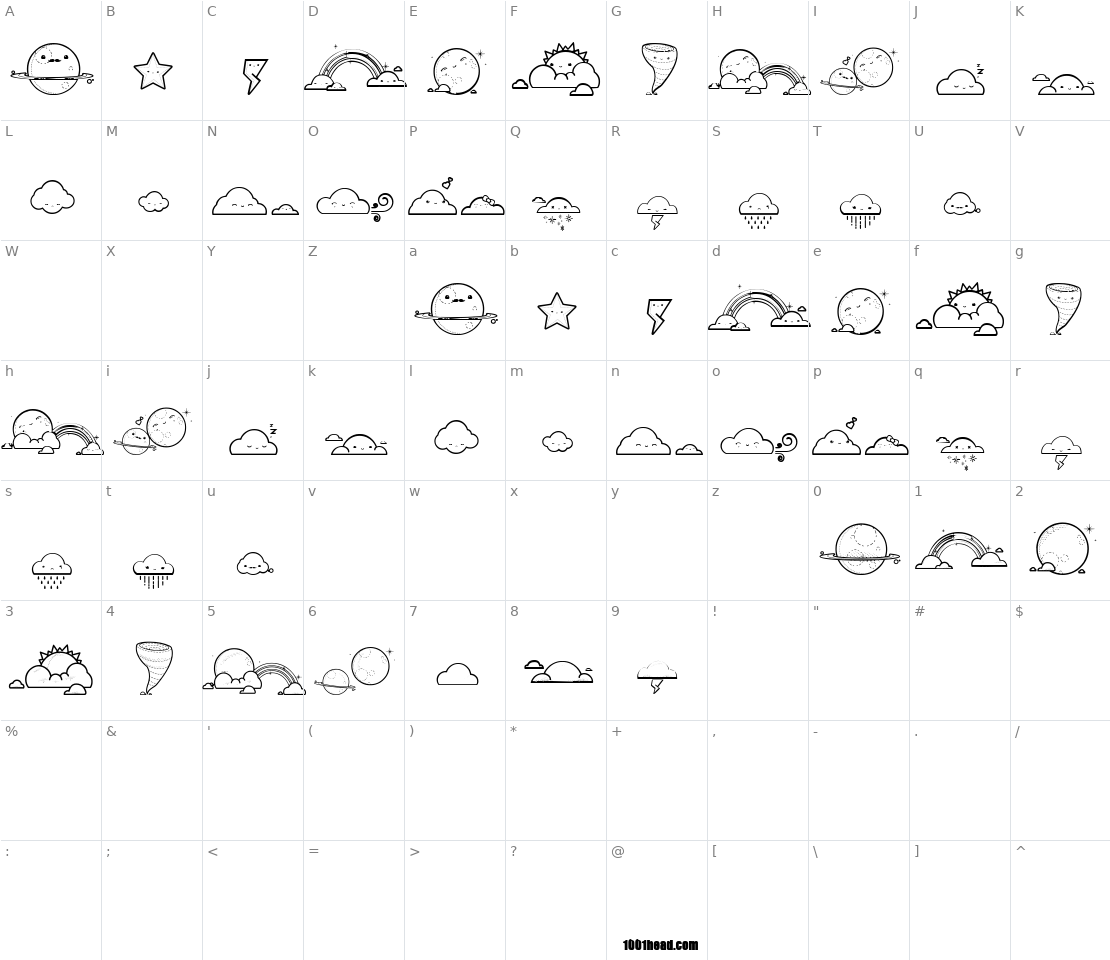
Toy Cloud
Toy Cloud is a decorative icon font from Maelle.K and Thomas Boucherie filled with cute, kawaii-style weather illustrations: clouds, raindrops, rainbows, and similar motifs rendered with a soft, rounded charm. It's not a text face at all but a set of whimsical dingbats, useful for children's projects, sticker sheets, weather apps, or adding playful visual accents to layouts that need a little warmth and personality.